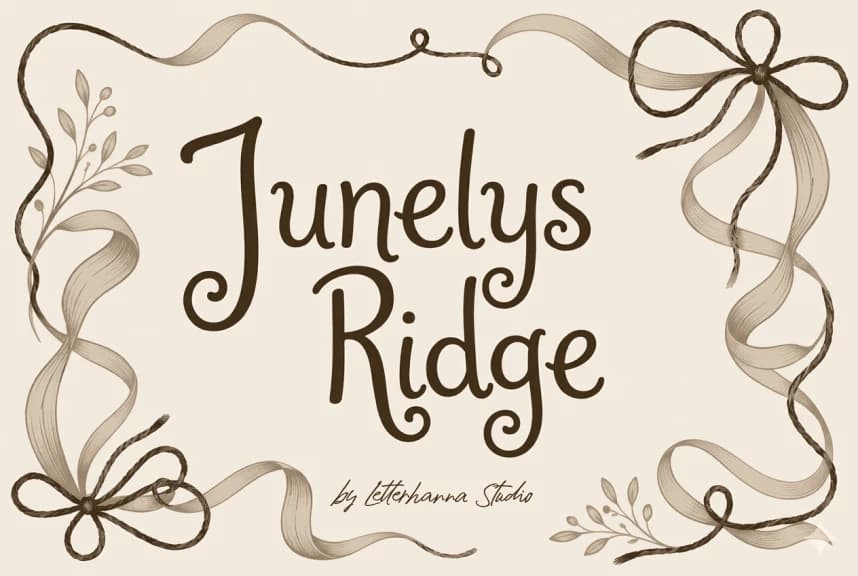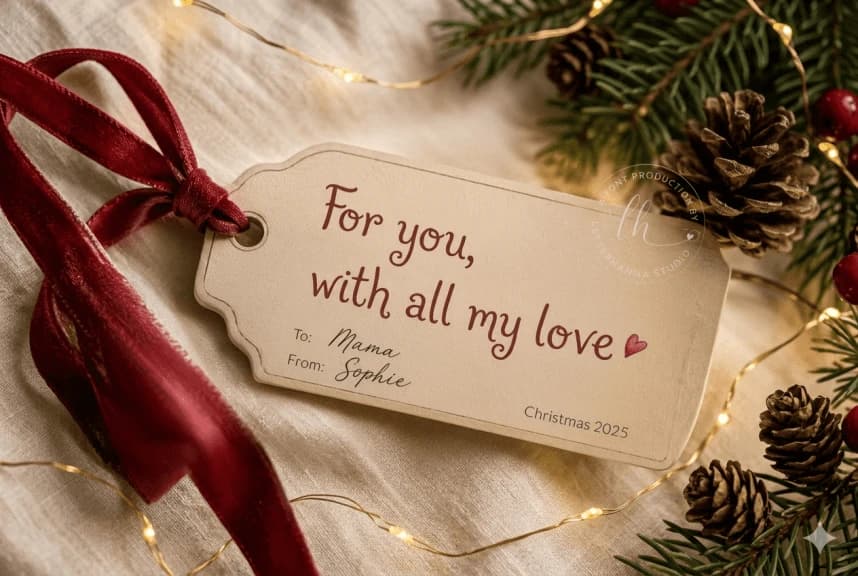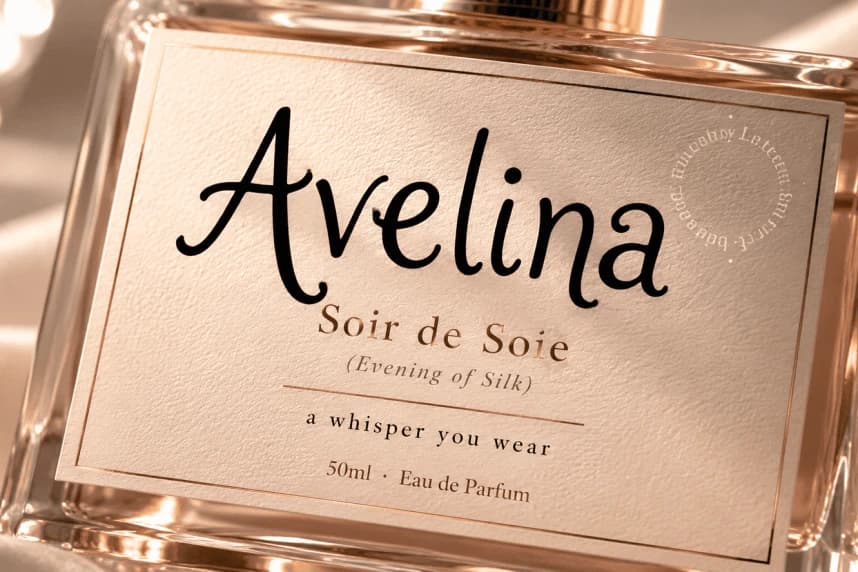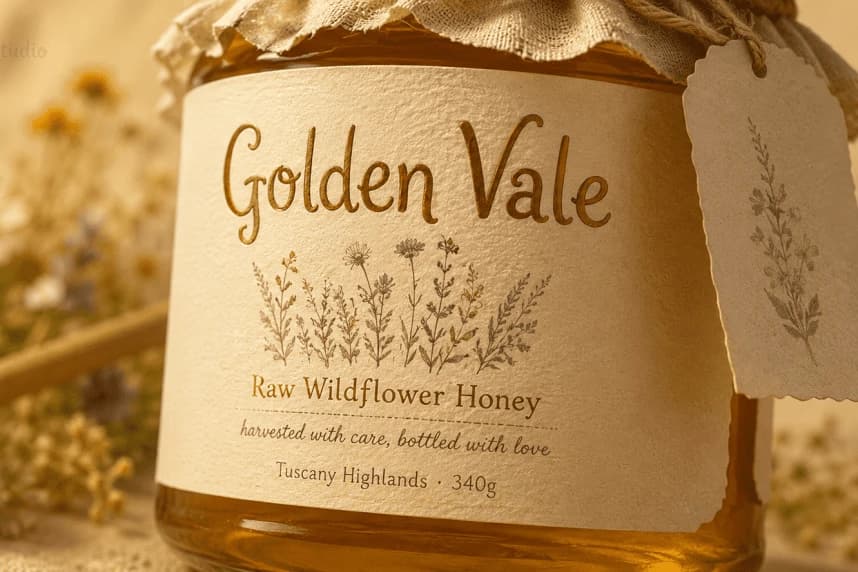
Junelys Ridge Font
Junelys Ridge Font — a script font that moves like ink on paper, swirls like a signature, and whispers elegance in every curve. With its flowing strokes, graceful spiral swashes, and perfectly balanced letterforms